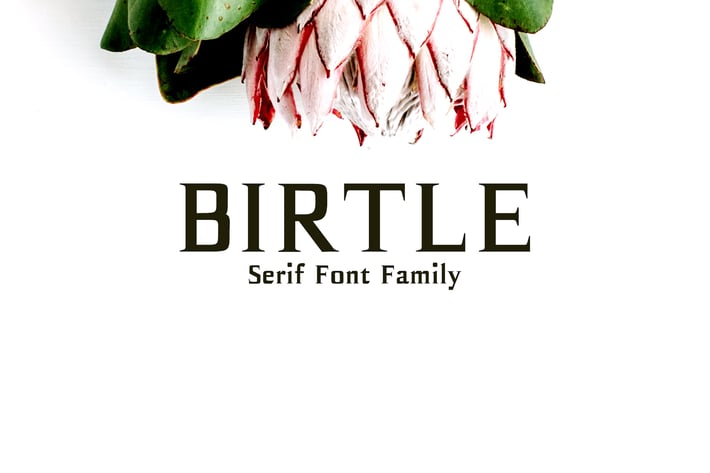
Birtle Serif Font Family
Birtle Serif Font Family is a decorative serif font family, which contains 3 weights and It features unique and modern serif look and feel. Perfect for gorgeous logos, titles, web layouts and branding. It looks gorgeous in all caps with a wide-set spacing if you want to try a classy look, or beautiful on its own in capital and lowercase letters for something completely timeless.
Included Features:
- Font Weight: Regular, Distorted and Bold
Birtle Font Features:
- Uppercase Multilingual Letters
- Lowercase Multilingual Letters
- Non English Characters ( Latin Supplement + Latin Extended A)
- ABCDEFGHIJKLMNOPQRSTUVWXYZ
- abcdefghijklmnopqrstuvwxyz
- 0123456789
- !"#$&'()+,-./:;=?[]_|¡«·»¿–—‘’“”•…‹›€
- ÀÁÂÃÄÅÇÈÉÊËÌÍÎÏÑÒÓÔÕÖØÙÚÛÜÝàáâãäåçèéêë
- ìíîïñòóôõöøùúûüýÿĀāĂăĆćČčĎďĒēĖėĚěĞğĨĩĪīİıĹ弾Ń
- ńŇňŌōŔŕŘřŚśŞşŠšŤťŨũŪūŮůŸŹźŻżŽžẼ
- ꜰꜱǫɢɪɴʀʏʙʜʟᴀᴄᴅᴇᴊᴋᴍᴏᴘᴛᴜᴠᴡᴢ